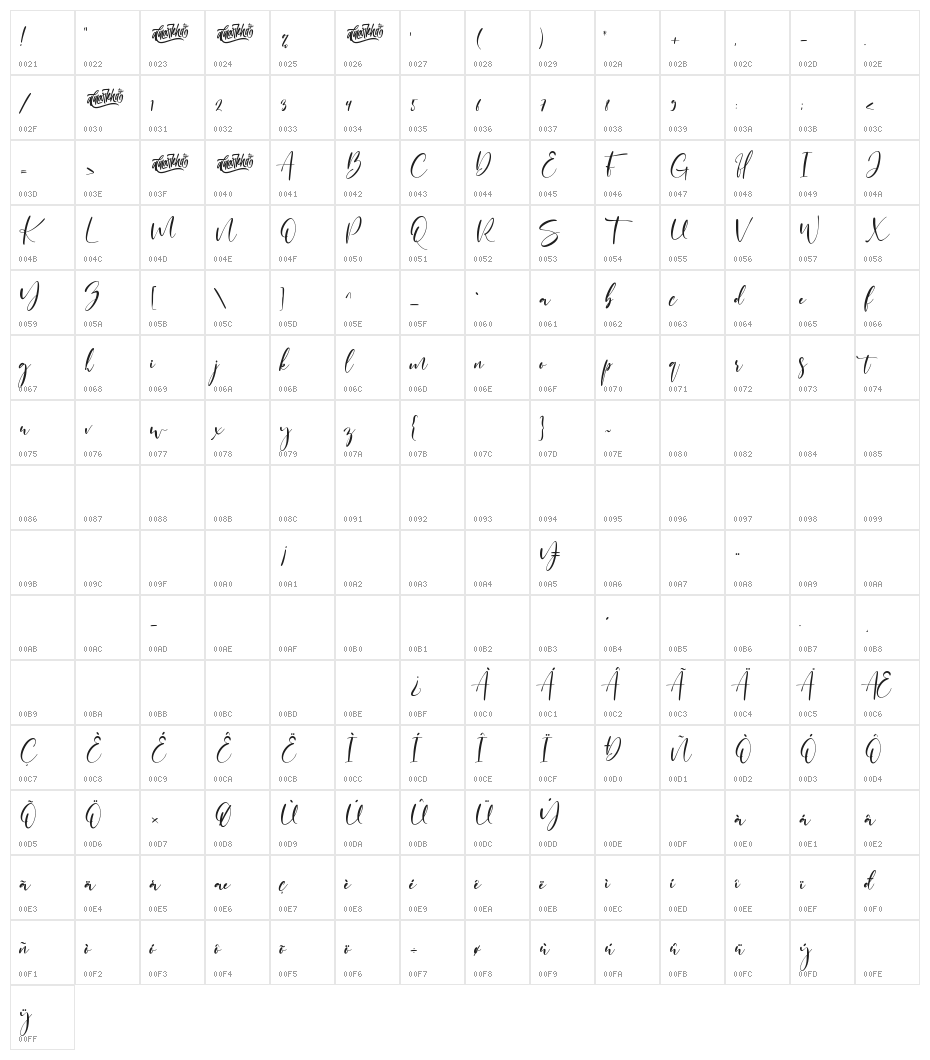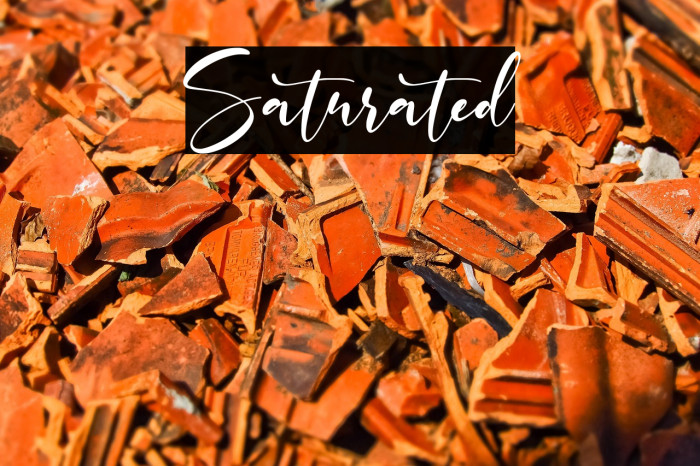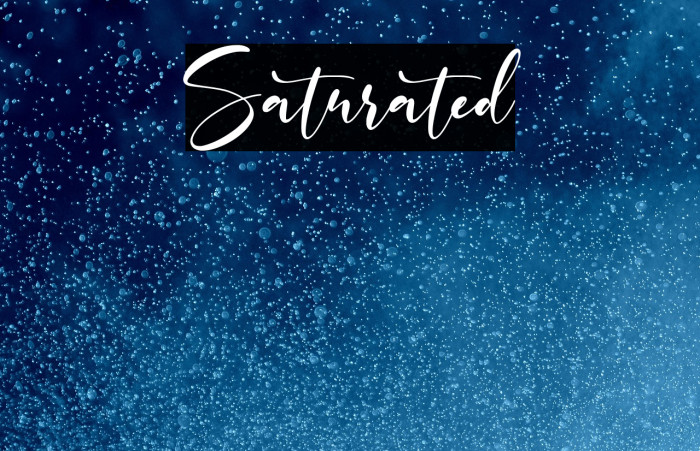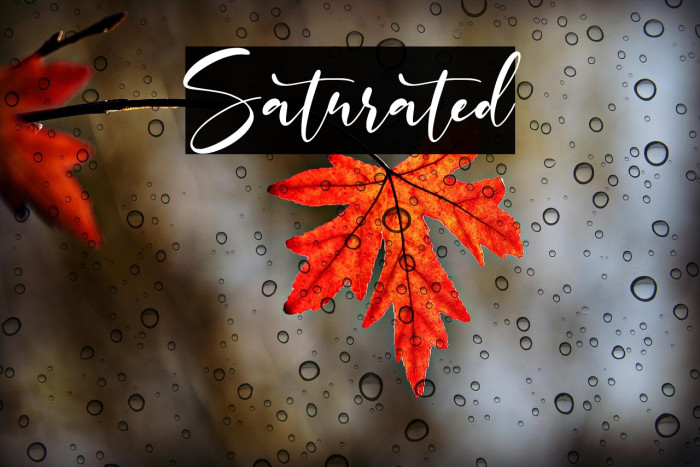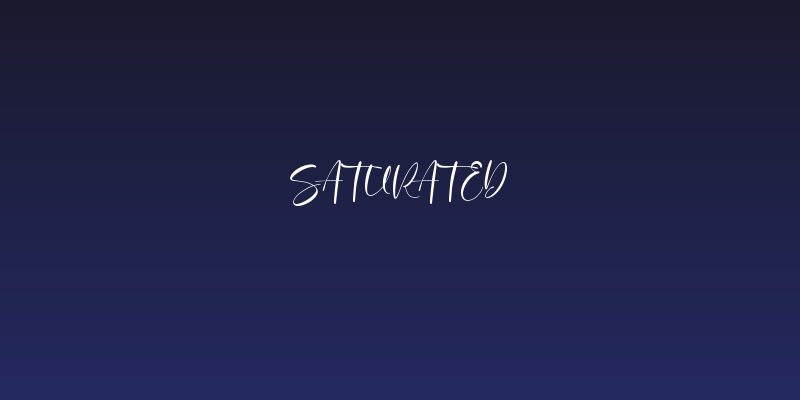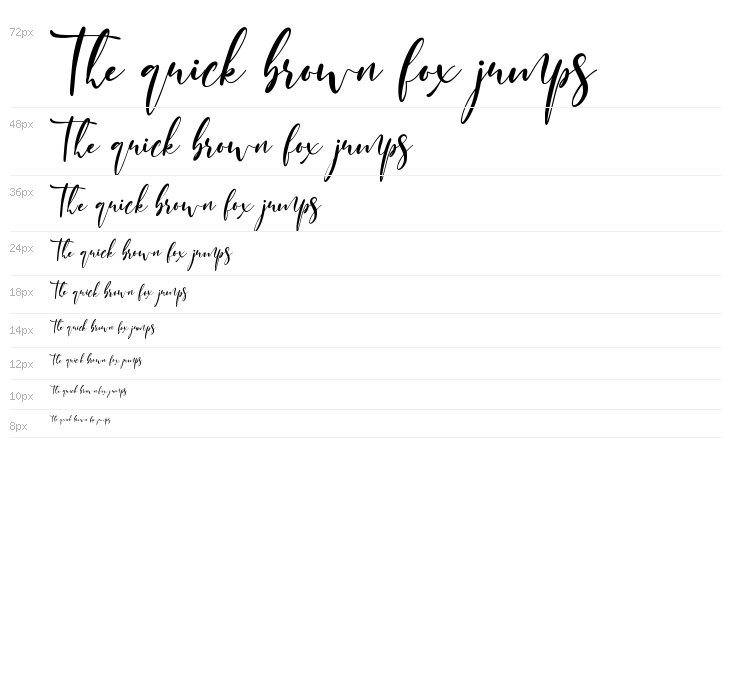
Saturated Font
Saturated Description
This font exhibits a flowing, cursive style with elegant, sweeping strokes that convey a sense of fluidity and grace. The uppercase letters are characterized by their tall, slender forms and dramatic flourishes, while the lowercase letters maintain a more consistent baseline with gentle curves and loops. The numerals are designed to complement the script style, featuring similar curves and a balanced weight. Special characters are integrated seamlessly, adding to the font's versatility. The overall appearance is both sophisticated and artistic, making it suitable for a variety of creative applications.